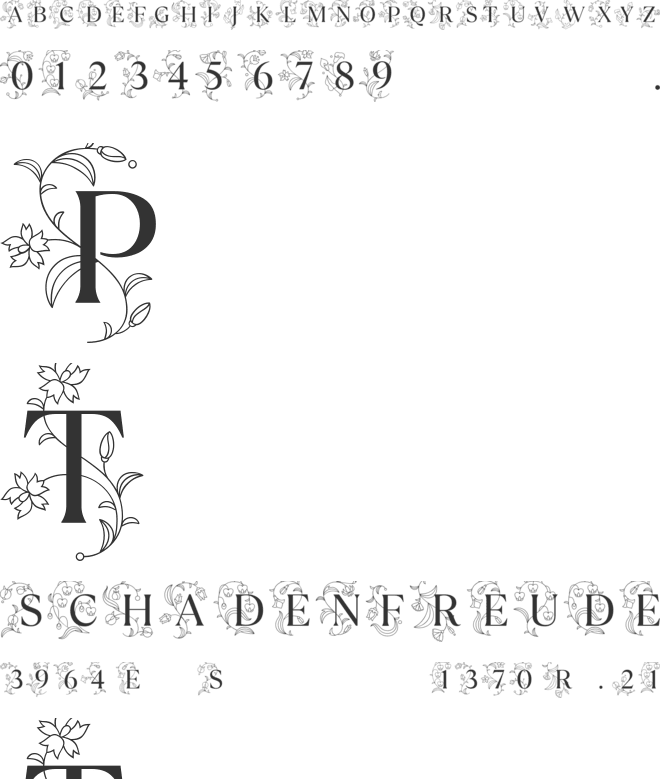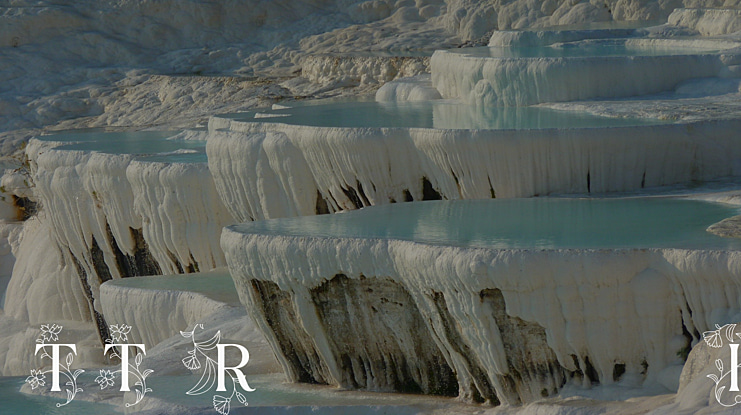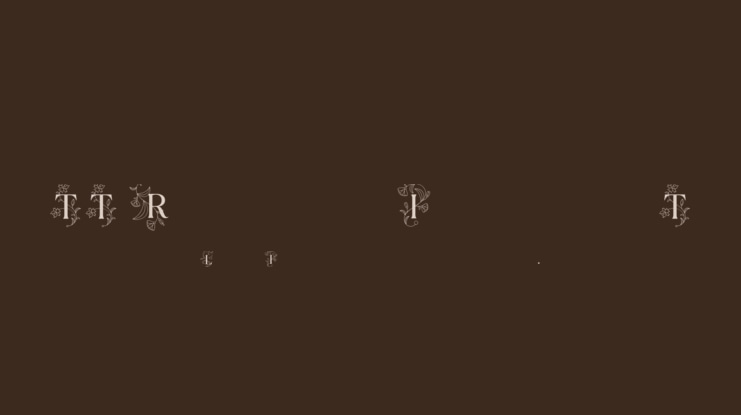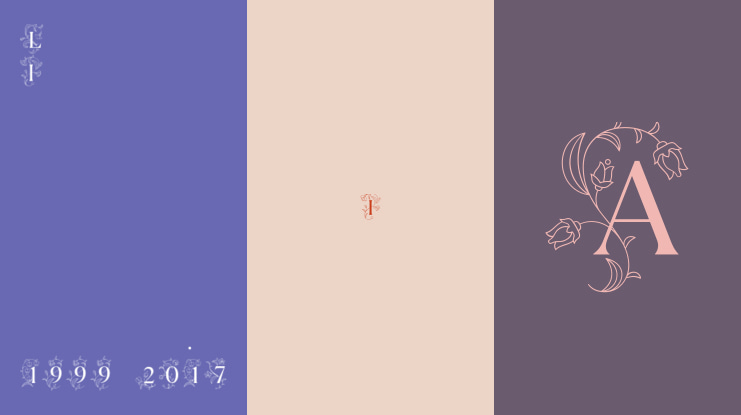
TT Ramillas Initials Trl Font Family
Designed by Pavel Emelyanov, Yulia Gonina, Marina Khodak,...
TT Ramillas is a fully reconsidered high contrast transitional serif, which is perfectly adapted to modern realities and requirements.
This font is perfect for use in magazines, in the fashion industry, in the branding of premium goods and services.
TT Ramillas is quite versatile and suitable for use both in headings and in text arrays. In addition, we have done manual hinting in the typeface, and now it can be used with a clear conscience in the web and applications.